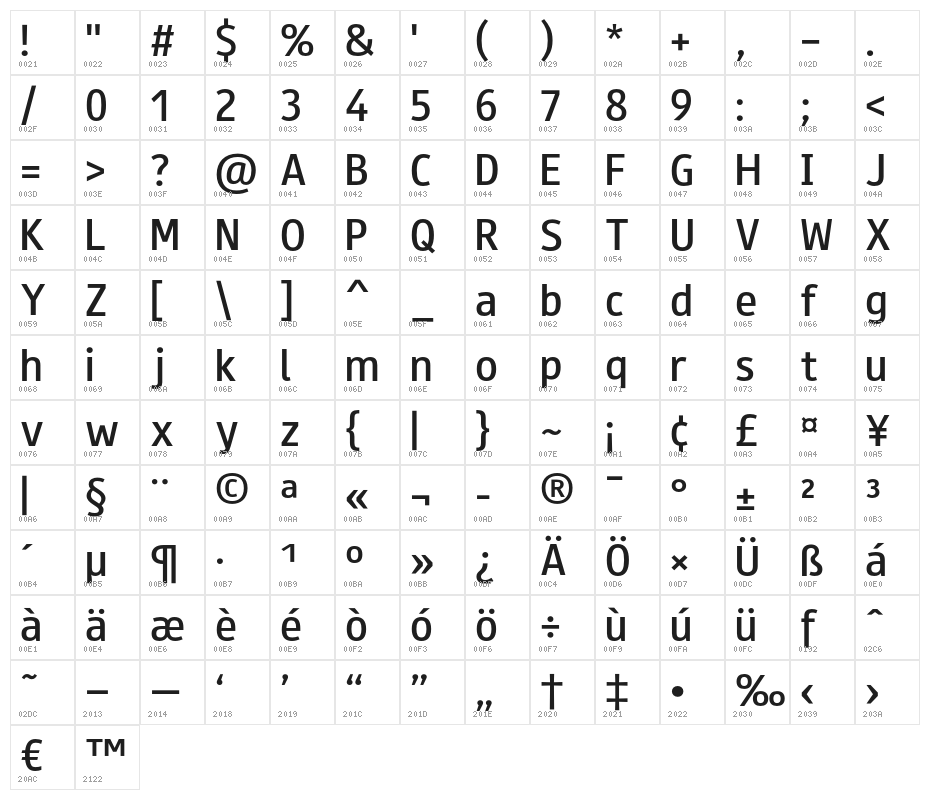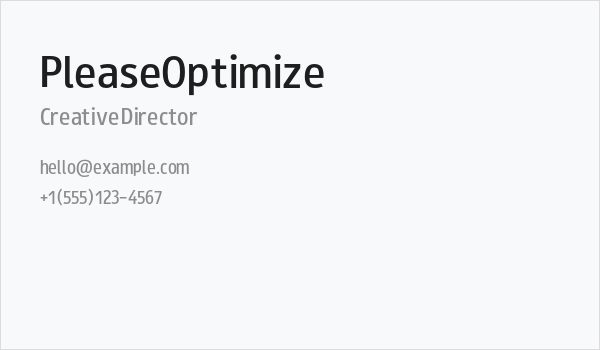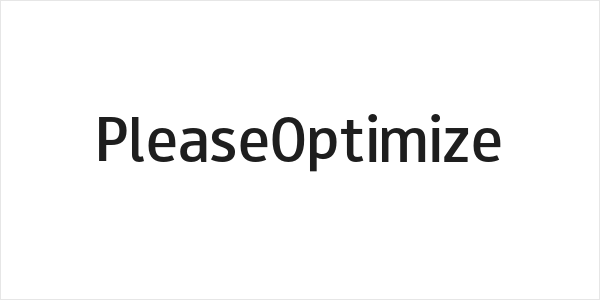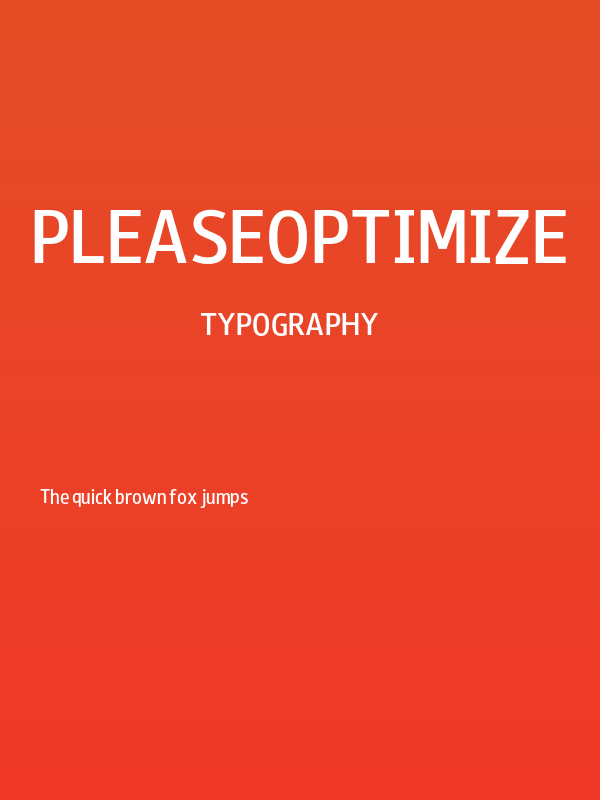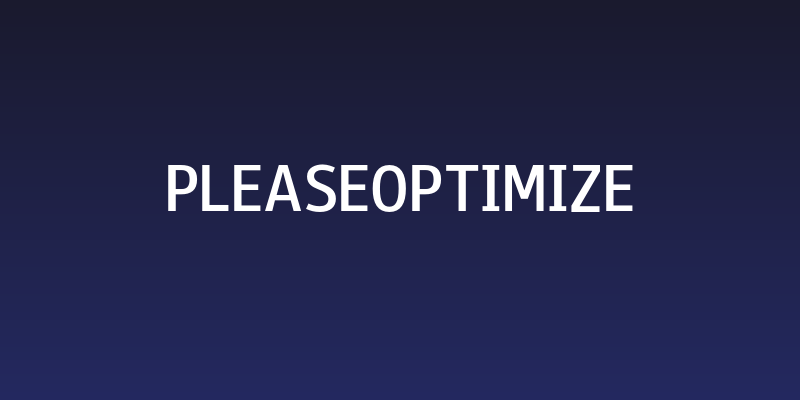
PleaseOptimize Font
PleaseOptimize Description
This font features a clean and modern sans-serif design, characterized by its geometric shapes and uniform stroke widths. The uppercase letters are bold and assertive, while the lowercase letters maintain a consistent and harmonious appearance. The numerals are clear and easily distinguishable, making them suitable for a variety of applications. Special characters are well-integrated, maintaining the overall aesthetic of the font. The design is versatile, offering a contemporary look that is both professional and approachable.
| Proposed Projects | Ideal for branding, advertising, web design, and editorial projects that require a clean and modern aesthetic. |